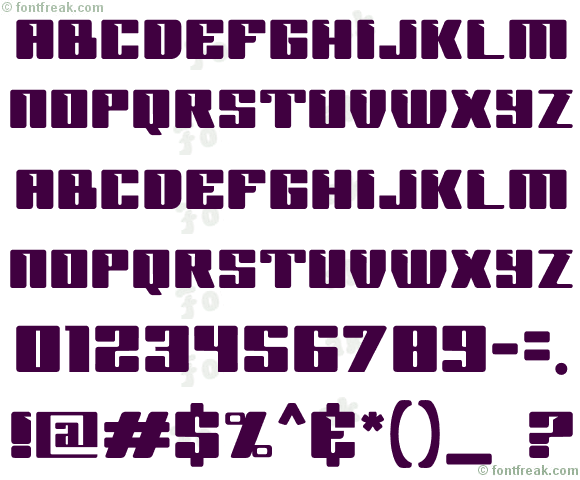
MORSPEED
About MORSPEED
MORSPEED is a striking display font crafted by MaknaStudio in 2022, designed for those seeking a bold and contemporary typographic solution. This sans-serif typeface features thick, chunky letterforms that create a sense of urgency and modernity. The uniform stroke weight and minimal contrast between the thick and thin parts of each character contribute to its robust appearance, making it a standout choice for various design applications. Its geometric shapes are complemented by subtle decorative elements, giving it a unique edge without overwhelming the overall structure.
The MORSPEED font free download is particularly well-suited for high-impact use cases. It excels in creating eye-catching headlines for movie posters, where its distinctive style can draw immediate attention. Additionally, the font would work beautifully in branding projects for small businesses, particularly in trendy sectors such as cafes or boutiques, where a modern aesthetic is essential. It can also enhance restaurant menus, providing a fresh and inviting look that aligns with contemporary dining experiences. Furthermore, MORSPEED fits seamlessly into promotional materials for events, lending a dynamic flair to flyers and advertisements.
Targeting graphic designers, small business owners, and content creators, MORSPEED appeals to those who wish to convey a sense of innovation and boldness in their work. Its versatility allows for usage across various digital and print mediums, making it a valuable addition to any designer's toolkit.
What truly sets the MORSPEED font apart is its ability to blend modern design sensibilities with a strong visual impact, ensuring that any project featuring it will stand out from the crowd. Whether for professional branding or creative endeavors, MORSPEED offers a unique typographic voice that captures attention and leaves a lasting impression.